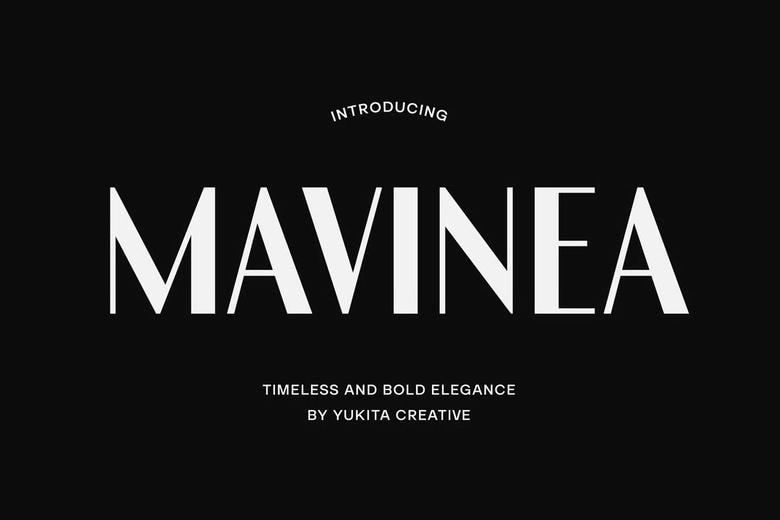
Mavinea Font
Mavinea Font can be characterized as an elegant and simple sans serif font featuring a classiness that can add a touch of excellence to every current designing project. Due to the sharp contrast of thick and thin strokes, Mavinea is a source of a sophisticated visual rhythm, which unites luxury and minimalism.
Great as a brand, package design, editorial design, and luxury logo, the Luxury Bold Font has vintage potential at a high end with unwisdom and refined geometry. With or without large headlines, Mavinea brims with assurance and suaveness anytime you choose to use it in polished typographic arrays.
Mavinea Luxury Bold Sans Serif Font